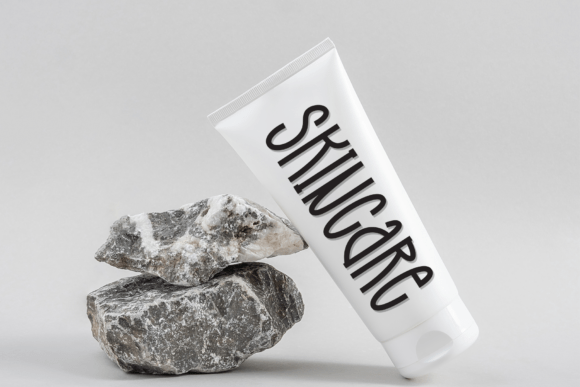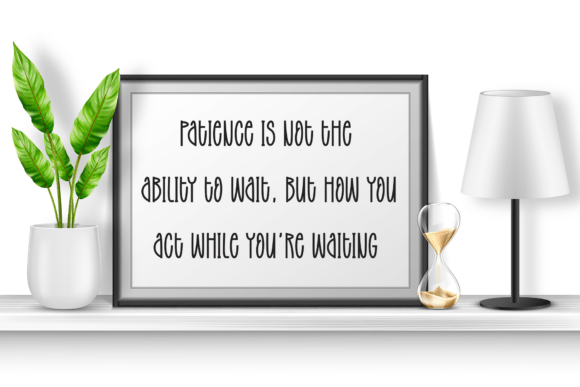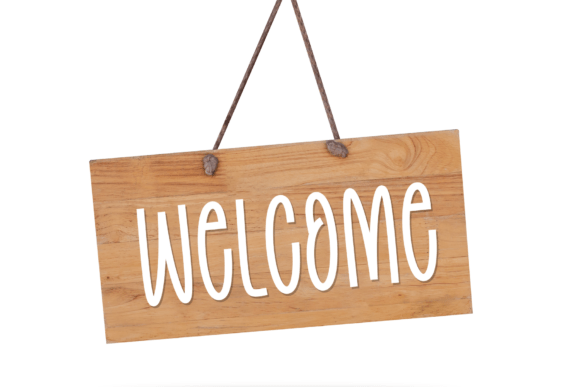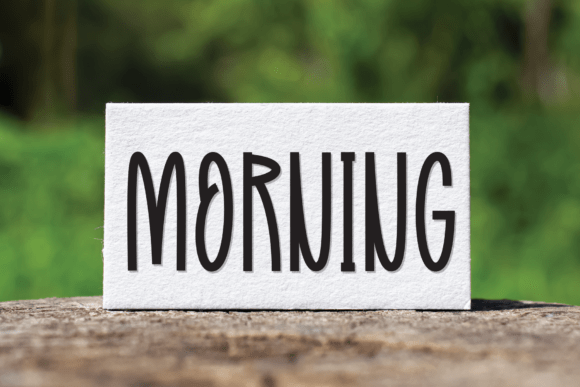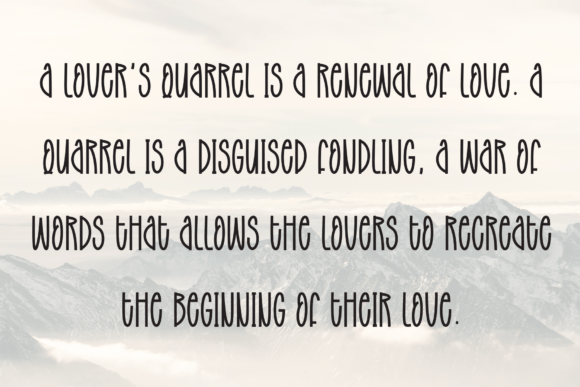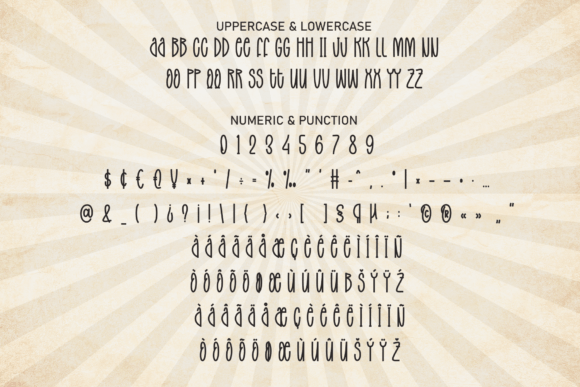
Introduction to Retro Alphabet Font
Retro Alphabet brings a funky, nostalgic flair to your designs with its tall, narrow letters and vintage charm.
Inspired by mid-century poster art, this font is perfect for retro branding, music flyers, t-shirt designs, and quirky headlines Its playful yet stylish aesthetic makes it stand out with personality.
Key Features of Retro Alphabet Font
Why Choose Retro Alphabet Font?
Retro Alphabet Font offers exceptional quality and versatility, making it a valuable addition to your design toolkit. Whether you’re creating for personal projects or commercial use, Retro Alphabet Font delivers professional results.